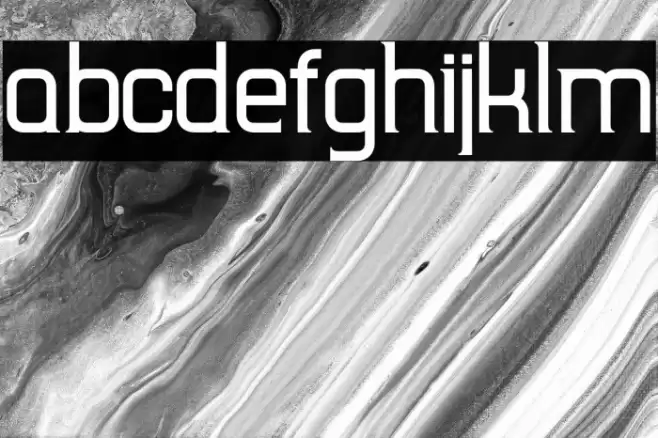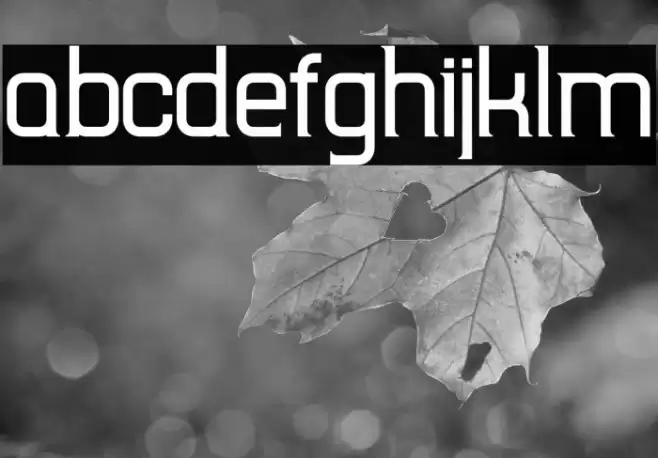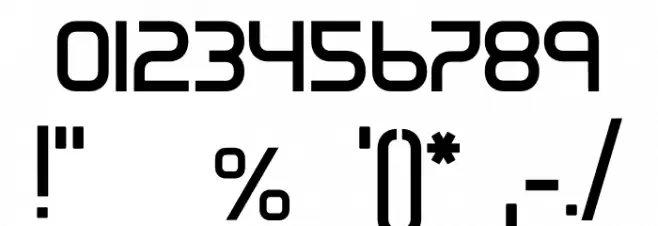
TripSerifCE Font
TripSerifCE Description
This font features a modern and geometric design with a clean, structured appearance. The characters are uniform in height and width, providing a balanced and harmonious look. The strokes are consistent, with a medium contrast between thick and thin lines, giving it a sleek and contemporary feel. The rounded edges soften the overall appearance, making it approachable and versatile. The font maintains a steady rhythm with its even character spacing, ensuring readability and clarity. Its distinct style makes it suitable for various design applications, from digital interfaces to print media.
A modern, geometric font with clean lines and rounded edges from Uncategorized fonts.